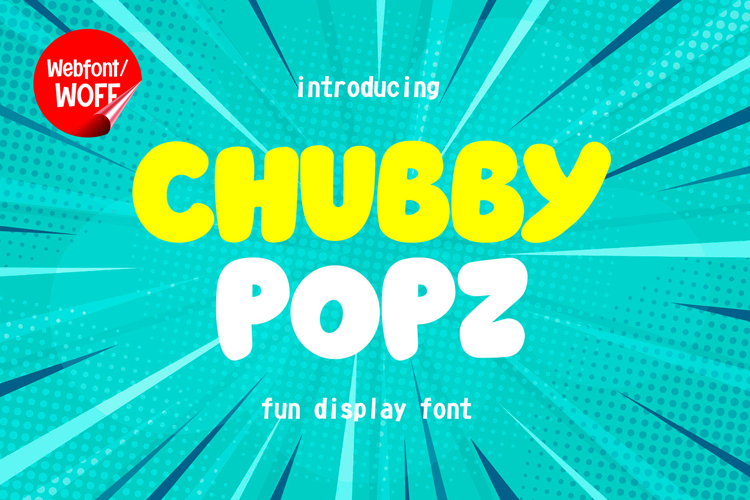
Chubby Popz | Cute Rounded Webfont for Fun Websites
Chubby Popz is a cute and rounded webfont designed to bring a fun, friendly, and eye-catching personality to your website. With its soft curves and bold, bubbly letterforms, this font is perfect for creating a warm and welcoming visual experience. Whether you are designing a children’s website, an online shop, a creative portfolio, or a playful landing page, Chubby Popz helps your content stand out with charm and clarity.
The rounded and thick letter shapes make Chubby Popz highly readable, even at smaller sizes. This makes it a great choice not only for headlines and titles but also for navigation menus, banners, and short text elements. Its playful style naturally draws attention, making it effective for call-to-action sections, promotional content, and featured highlights.
Chubby Popz includes a full set of uppercase characters, designed with consistency and balance to give your text a bold and unified appearance. It also features numbers and punctuation, allowing you to use it across a wide range of design needs, from pricing displays to informational text. Every character is carefully designed to maintain the same cute and rounded aesthetic.
With multilingual support, Chubby Popz allows you to communicate with a broader audience. It includes a variety of accented characters, making it suitable for international websites and global brands. This ensures that your design remains consistent and appealing across different languages without losing its visual identity.
This webfont works beautifully in many types of projects, including e-commerce websites, kids-themed platforms, blogs, mobile interfaces, and branding-focused pages. Its unique style adds personality while maintaining readability, helping users stay engaged with your content. The friendly appearance of the font can also help build a stronger emotional connection with visitors, making your website feel more approachable and memorable.
Chubby Popz is a great choice for designers and developers who want to combine creativity with functionality. Its smooth curves, balanced spacing, and optimized web performance make it a reliable and stylish addition to any digital project. If you are looking for a rounded, cute webfont that enhances both design and usability, Chubby Popz delivers a perfect blend of fun and professionalism.